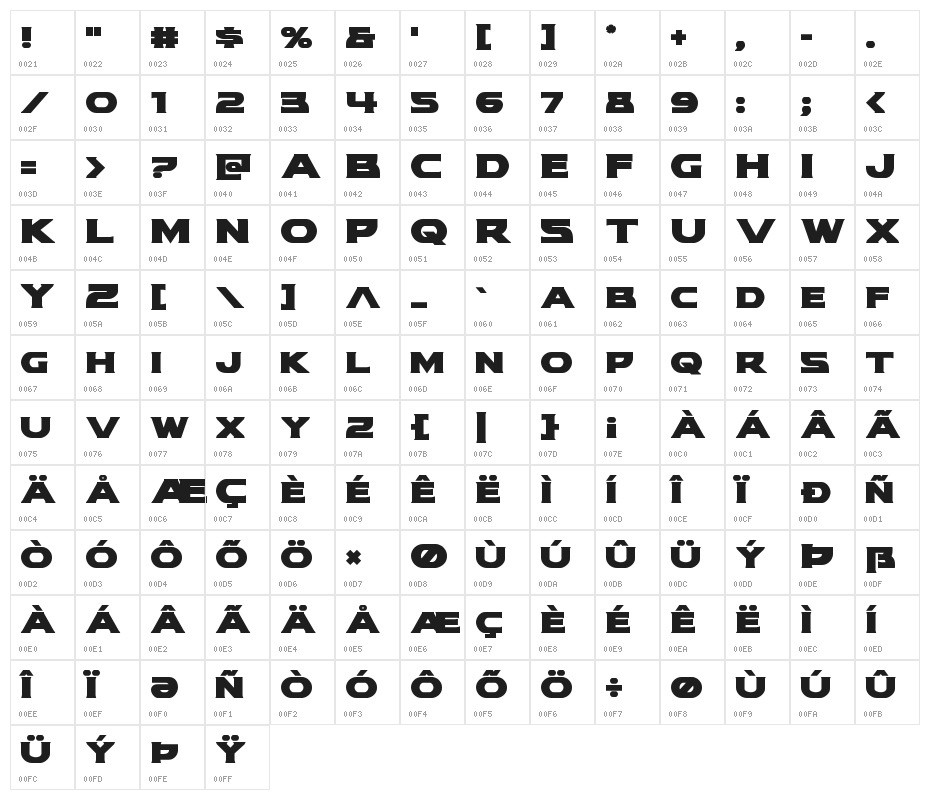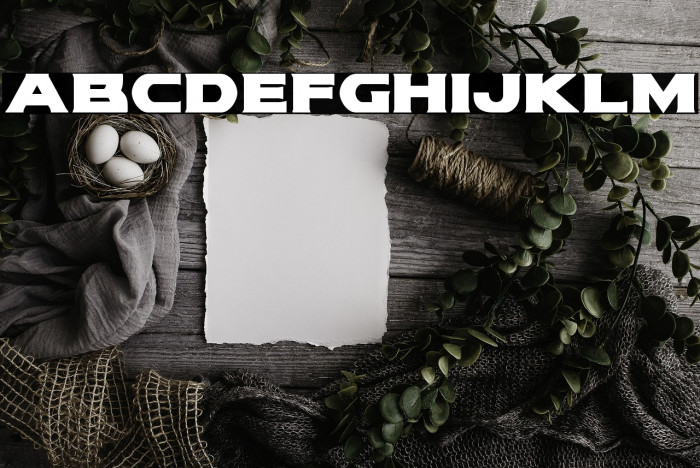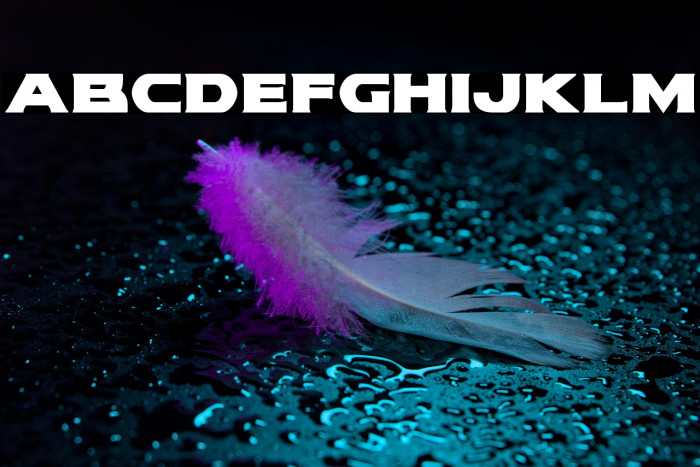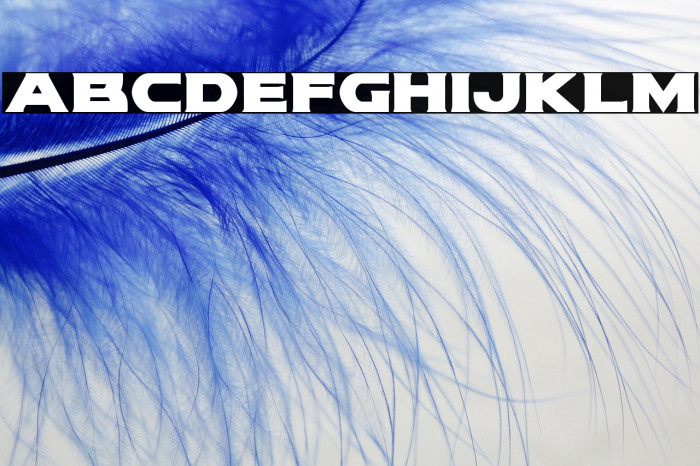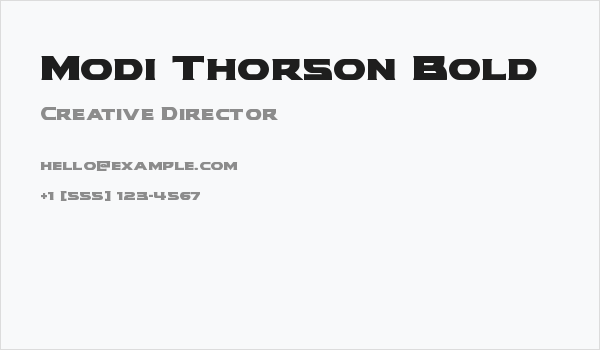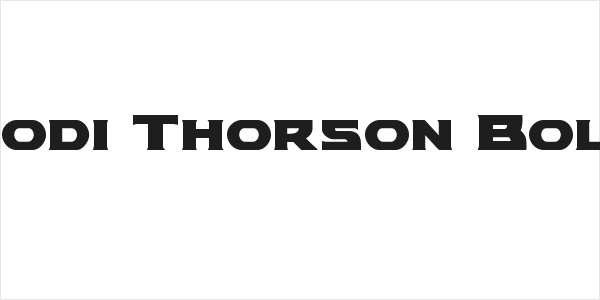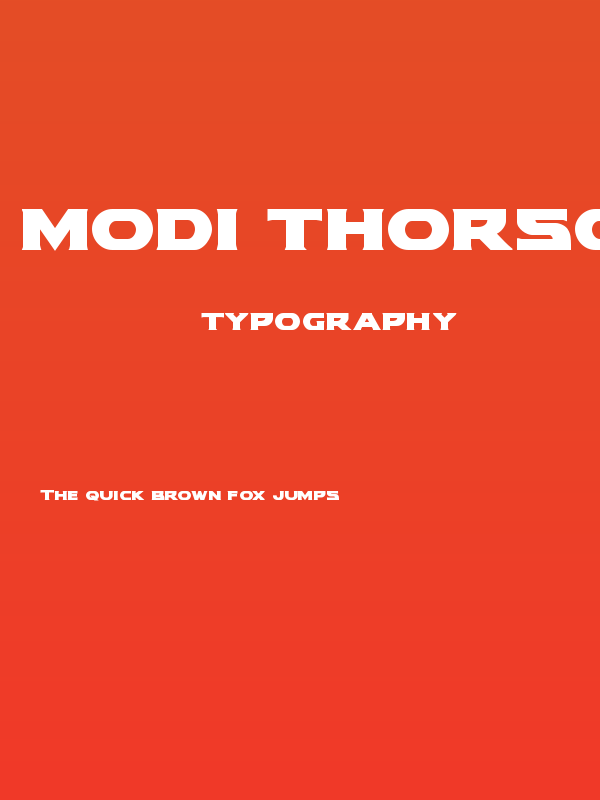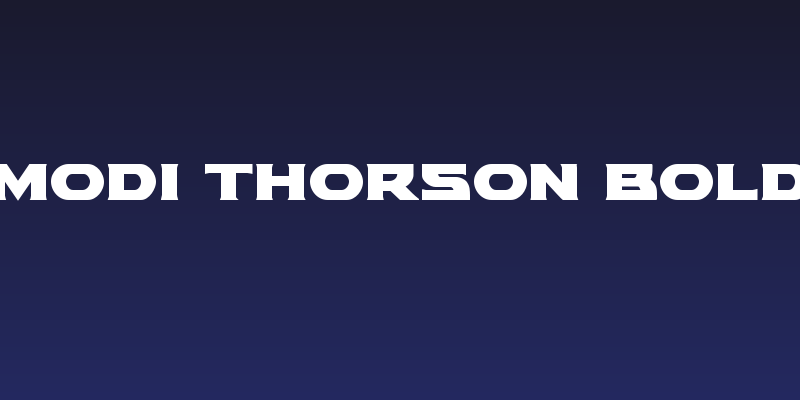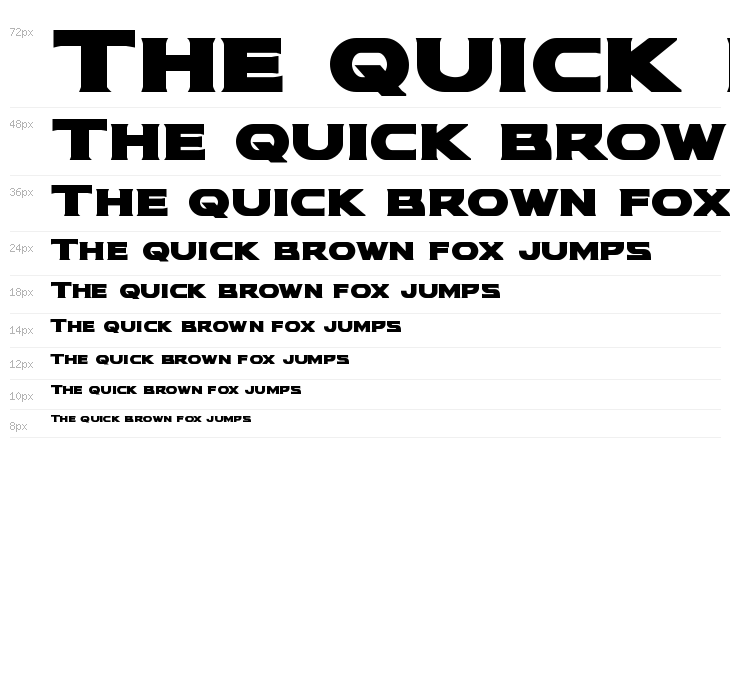
Modi Thorson Bold Font
Modi Thorson Bold Description
This font features a bold, geometric design with strong, angular lines and a modern aesthetic. The uppercase letters are particularly striking, with a blocky appearance that conveys strength and stability. The numerals and special characters maintain this bold style, ensuring consistency across all text elements. The font's design is both futuristic and industrial, making it suitable for projects that require a strong visual impact. Its distinct style is ideal for attention-grabbing headlines or branding that seeks to convey power and modernity.
| Proposed Projects | Ideal for branding, headlines, posters, and any design requiring a strong visual impact. |